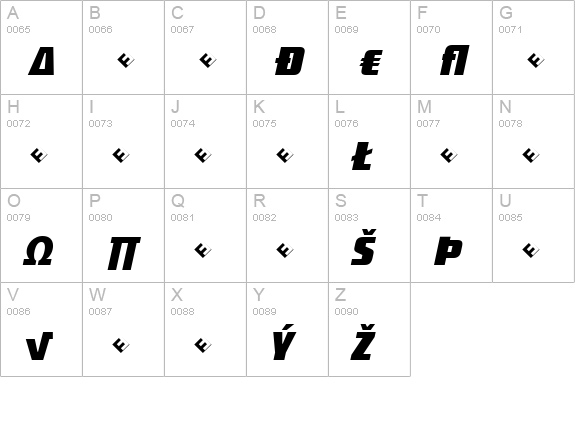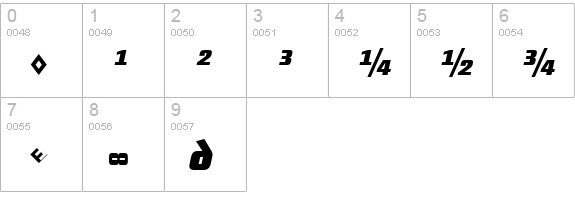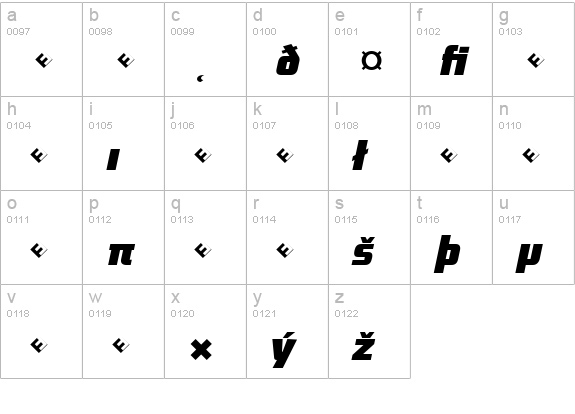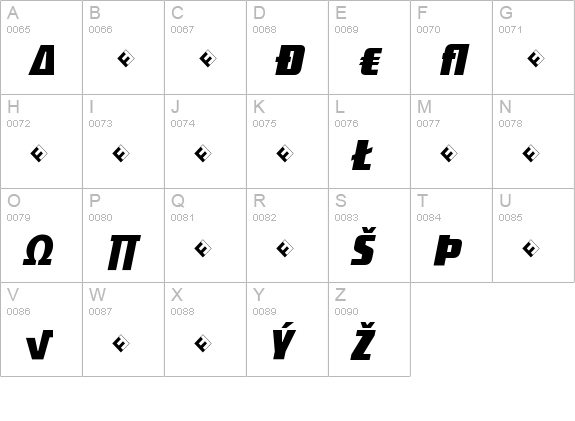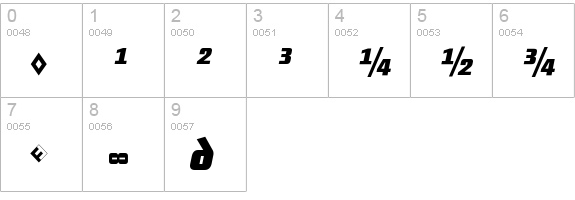
District-BoldItalicAltExp Font Details
District-BoldItalicAltExp is a modern and stylish font that exudes confidence and sophistication. Its bold and italic design gives your text a unique edge, making it stand out in any design project. The alternate expansion version offers a fresh twist on the traditional font, perfect for creating eye-catching headlines or branding materials. Best of all, District-BoldItalicAltExp is available for free download at FontsMarket.com. Whether you're working on a personal project or a professional design, this font is sure to elevate your work with its sleek and contemporary look. Don't miss out on the opportunity to add District-BoldItalicAltExp to your font collection today!